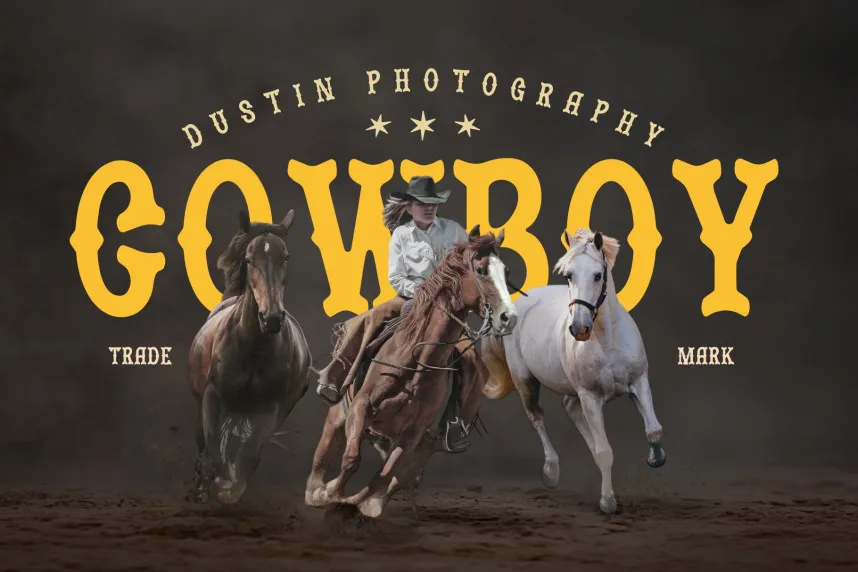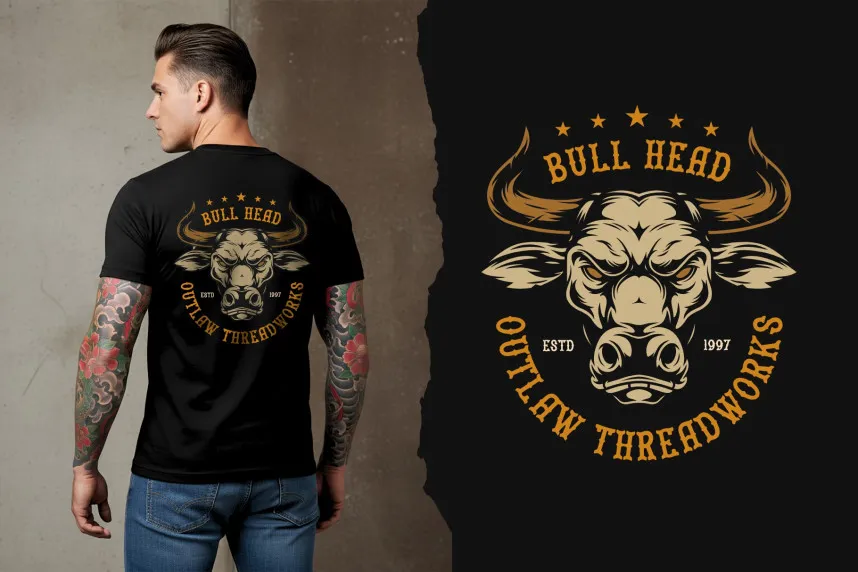
Dehorse Font is a strong and rugged display typeface. It draws inspiration from vintage western posters and signs. This font has a bold, weathered character full of personality.
Its heavy slab serifs and notched details are instantly recognizable. The style evokes a sense of adventure and raw authenticity. It is perfect for branding for breweries or music festivals.
This font makes a powerful statement in any layout. It is best used at large sizes for maximum impact. Consider it for logo design, posters, and product labels.
Dehorse brings a nostalgic and handcrafted feeling. The imperfect edges add charm and visual interest. It tells a story of tradition and crafted quality.
Dehorse Font Family
The typeface includes useful ligatures and alternate glyphs. You can create custom word marks with unique flair. It is a versatile tool for expressive headline design.
Name Dehorse Font
Type Rugged Western Display Font
Best For Brewery Branding & Music Posters
Unique Feature Included Distressed Texture Overlays
Select Dehorse Font for projects needing rustic strength. It delivers a memorable and timeless aesthetic. Capture a classic American spirit with this bold display face.